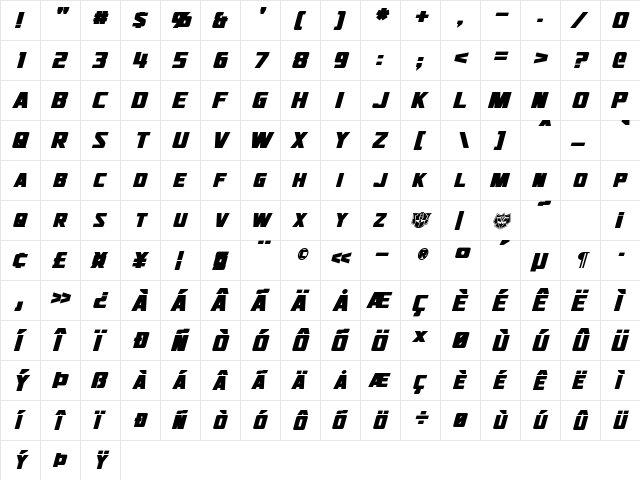
Jhiaxus Bold Italic
| Foundry | Neale Davidson |
| Designer | Neale Davidson |
Design Context for Jhiaxus Typeface
Jhiaxus takes a measured approach to typography — its balanced proportions and neutral character make it a reliable workhorse for both digital and print work. The slanted form adds forward momentum and visual energy. Its bold stroke weight gives it real presence on the page.
Pro Tip: Try Jhiaxus for annotation and caption copy alongside an upright companion — the contrast in angle creates a dynamic but ordered typographic system.